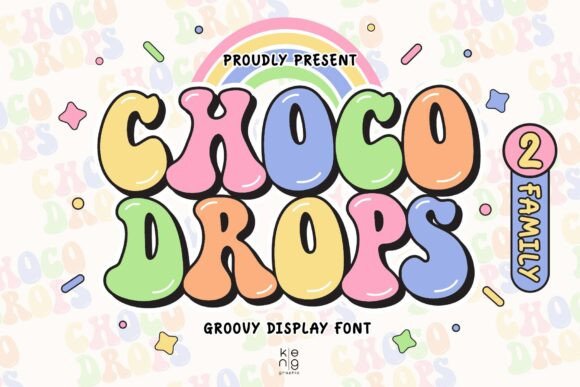
Unleash Your Playful Creativity with the CHOCO DROPS Font
Are you a designer looking for a font that can add a touch of fun and charm to your creations? Look no further than the CHOCO DROPS font. This adorable font is perfect for designers who want to unleash their playful creativity and bring a groovy vibe to their designs. In this article, we’ll take a closer look at the CHOCO DROPS font, its features, and how you can use it to take your designs to the next level.
What is CHOCO DROPS Font?
CHOCO DROPS is a unique and playful font that radiates a groovy, adorable vibe. It’s perfect for designers who want to add a touch of fun and charm to their creations. The font is designed to be versatile and can be used on a variety of designs, including t-shirts, mugs, bags, and more.
One of the standout features of CHOCO DROPS is its ability to bring a sense of playfulness and whimsy to any design. The font’s unique shape and style make it perfect for designs that require a bit of personality and flair.
How to Use CHOCO DROPS Font in Your Designs
CHOCO DROPS is a versatile font that can be used in a variety of designs. Here are some ideas to get you started:
- T-shirts: Add a fun and playful touch to your t-shirt designs with CHOCO DROPS. The font is perfect for creating bold and eye-catching designs that will stand out.
- Mugs: Make your mug designs more adorable and charming with CHOCO DROPS. The font is perfect for creating fun and quirky designs that will make your mugs stand out.
- Bags: Add a touch of personality to your bag designs with CHOCO DROPS. The font is perfect for creating unique and eye-catching designs that will make your bags stand out.
- Stationery: Use CHOCO DROPS to add a playful touch to your stationery designs, such as greeting cards, invitations, and more.
Benefits of Using CHOCO DROPS Font
There are many benefits to using CHOCO DROPS in your designs. Here are a few:
- Unique and Playful: CHOCO DROPS is a unique and playful font that will add a touch of personality to your designs.
- Versatile: The font is versatile and can be used in a variety of designs, from t-shirts to stationery.
- Easy to Read: CHOCO DROPS is easy to read, making it perfect for designs that require a clear and concise message.
- Customizable: The font is customizable, allowing you to adjust the size, color, and style to fit your design needs.
Tips and Tricks for Using CHOCO DROPS Font
Here are some tips and tricks for using CHOCO DROPS in your designs:
- Experiment with Colors: CHOCO DROPS looks great in a variety of colors. Experiment with different colors to find the one that works best for your design.
- Mix and Match: Don’t be afraid to mix and match CHOCO DROPS with other fonts. The font pairs well with a variety of fonts, so feel free to get creative.
- Use it for Headlines: CHOCO DROPS is perfect for headlines and titles. Use it to add a touch of personality to your design.
- Keep it Simple: While CHOCO DROPS is a playful font, it’s best to keep your design simple and clean. Avoid cluttering your design with too many elements.
In conclusion, CHOCO DROPS is a unique and playful font that is perfect for designers who want to add a touch of fun and charm to their creations. With its versatility, ease of use, and customizable features, CHOCO DROPS is an irresistible font that brings your vision to life. Whether you’re designing t-shirts, mugs, bags, or stationery, CHOCO DROPS is the perfect font to unleash your playful creativity and take your designs to the next level.